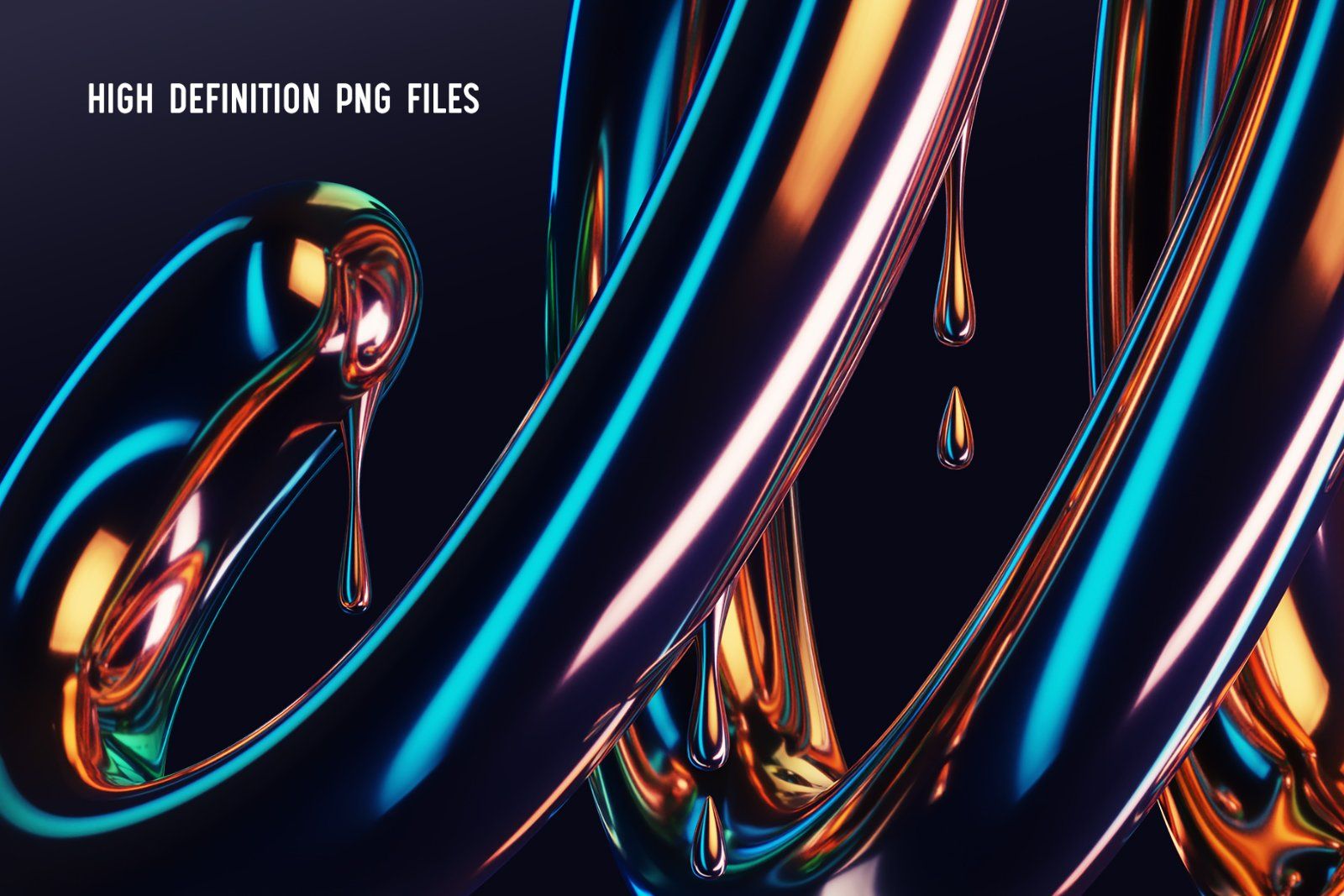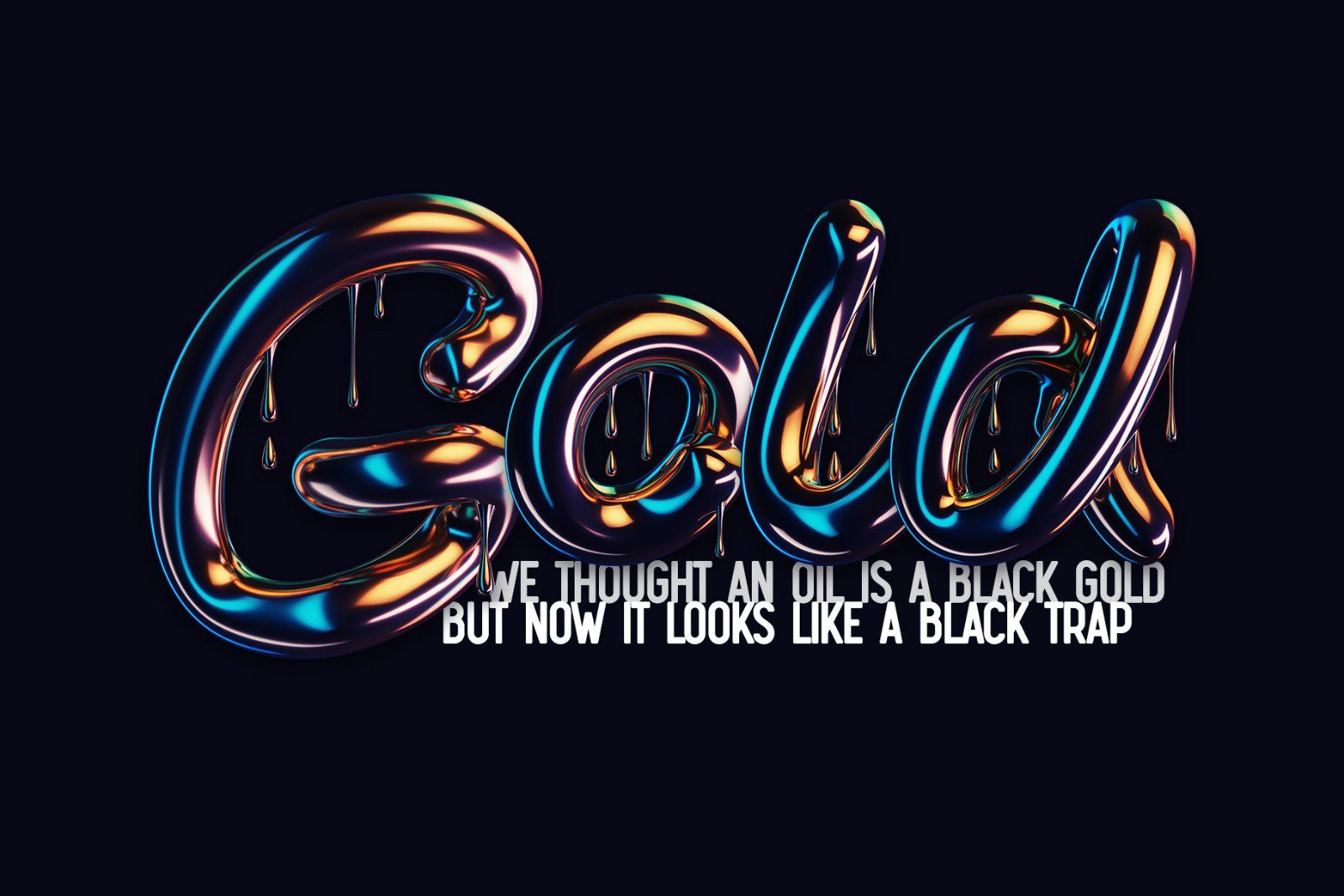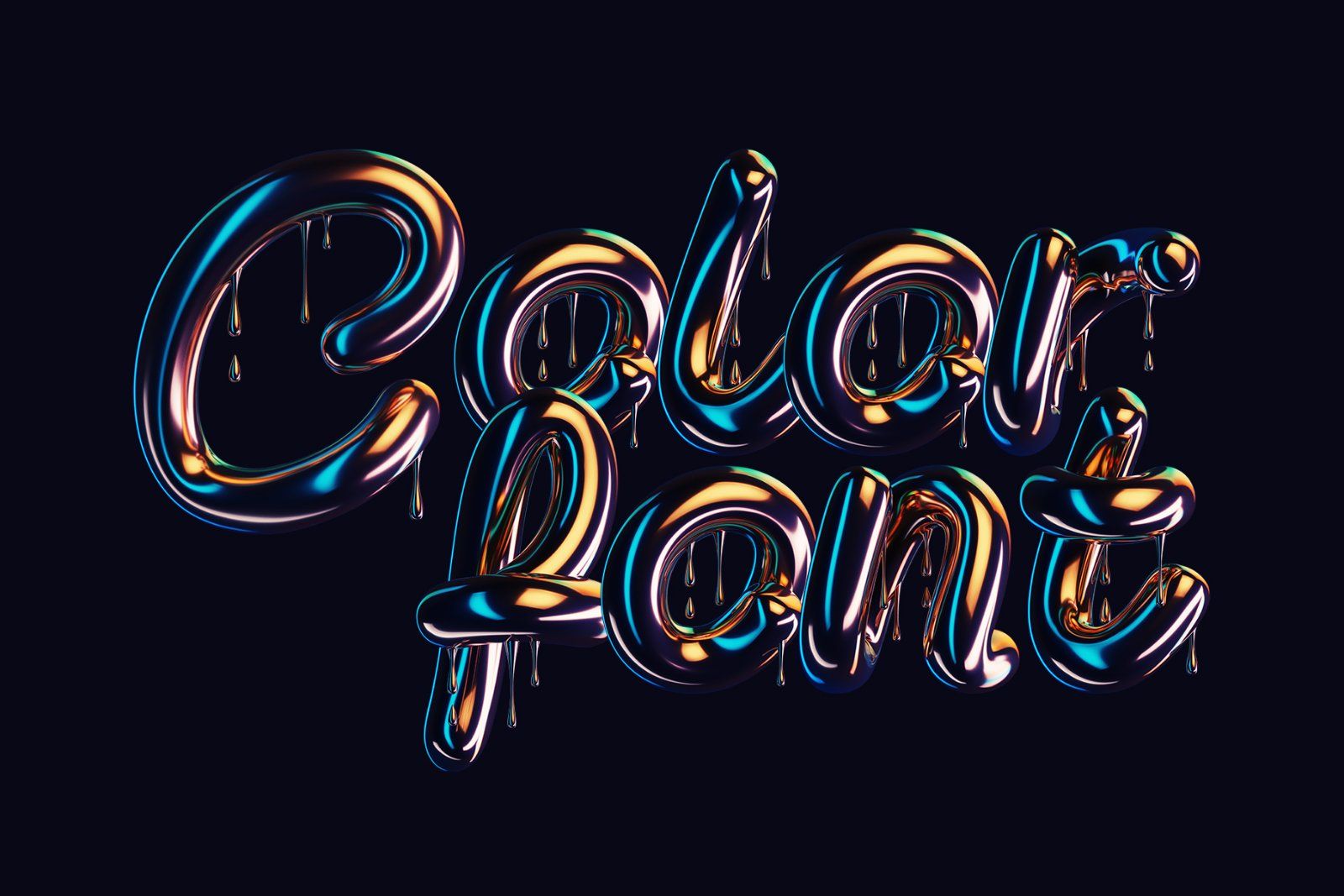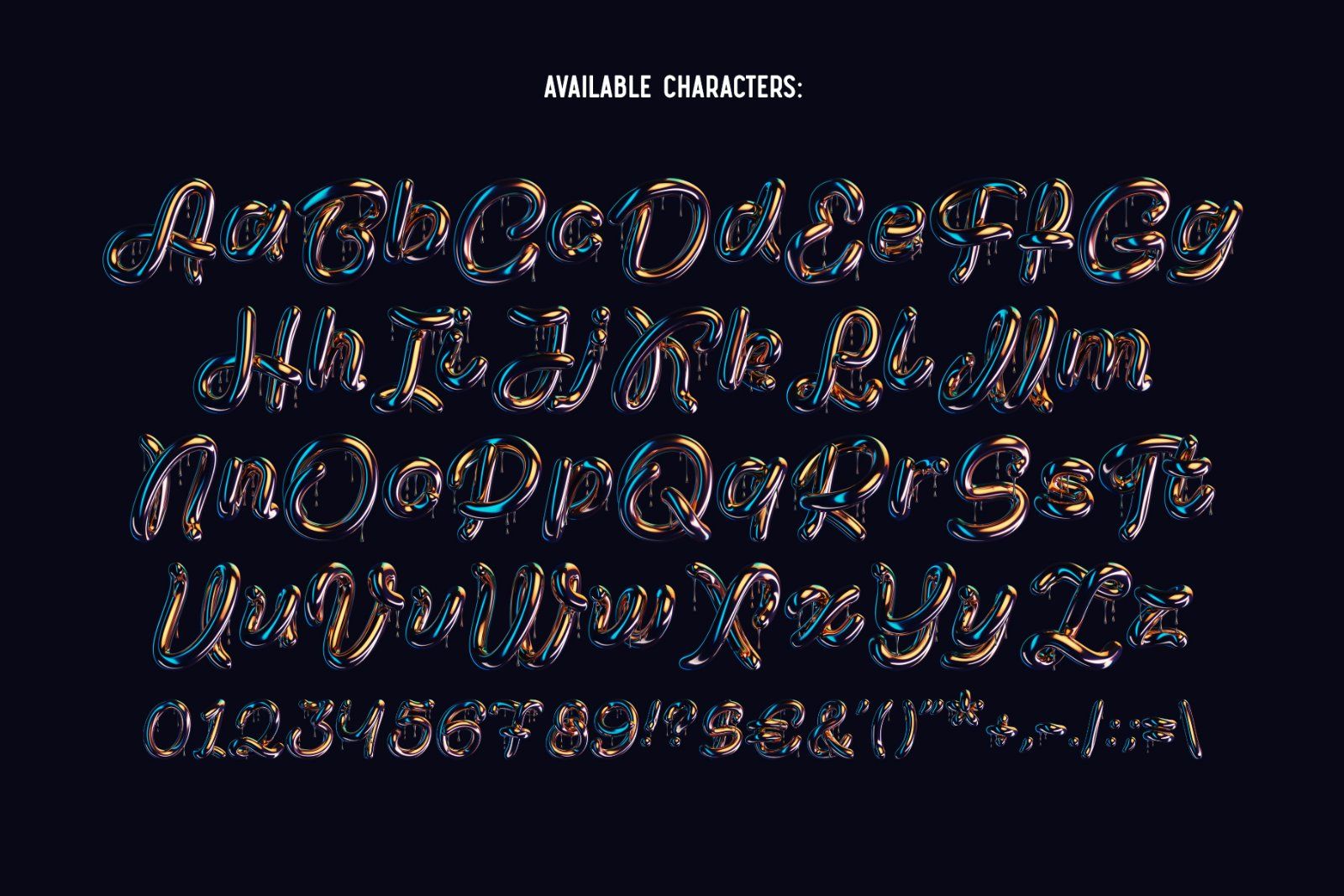
Hello! Presenting a Black Trap font with dripping oil effect. It's a 3d rendered high quality typeface with liquid glossy shape.
First of all it's a color bitmap OpenType-SVG font that can be used as a usual OTF font. Also a set of full resolution PNG files with transparent background is included. Consider that only English language and basic punctuation is supported, please check out the screenshot with all available characters.